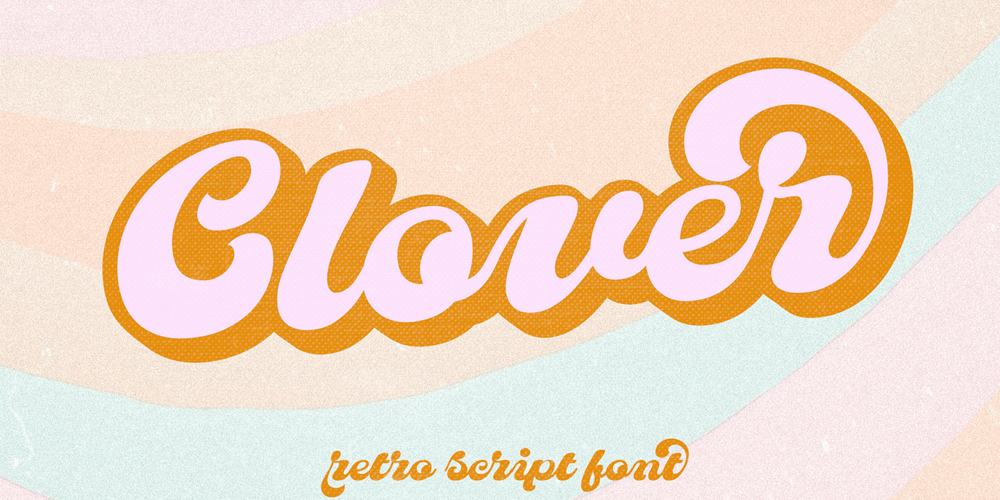
Clover Font Family was designed by Kaitlynn Albani and published by KA Designs. Clover contains 2 styles and family package options. Clover is a modern retro font with a light, bubbly feel! This font is perfect if you are after a fun script font that has a lot of edge! The versatility of this font reaches wide. Use this one for branding, logos, advertisements, shirts, stickers, social media, invitations and more!The complete package includes a complimentary shadow version for easy and perfect layering every time!Clover will take you right back to the 70’s but still provide a fresh look to your designs!